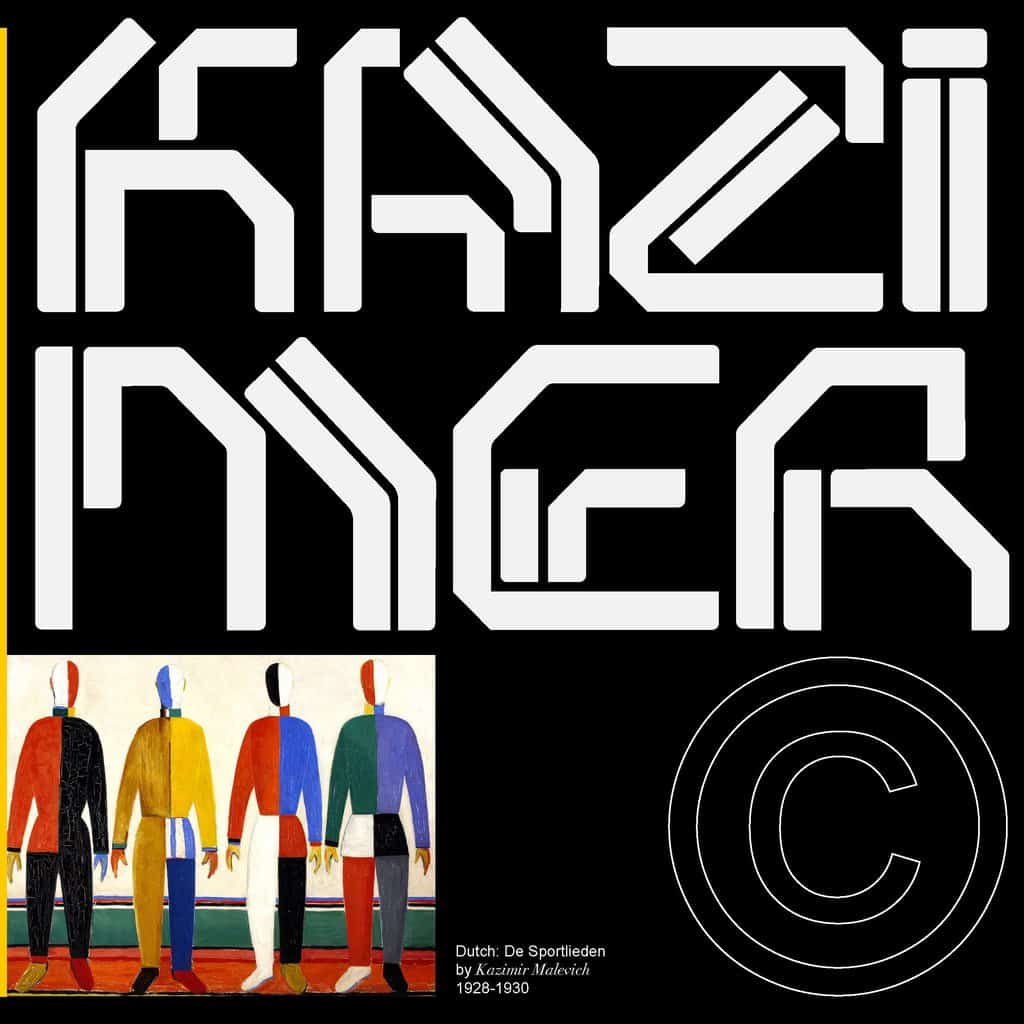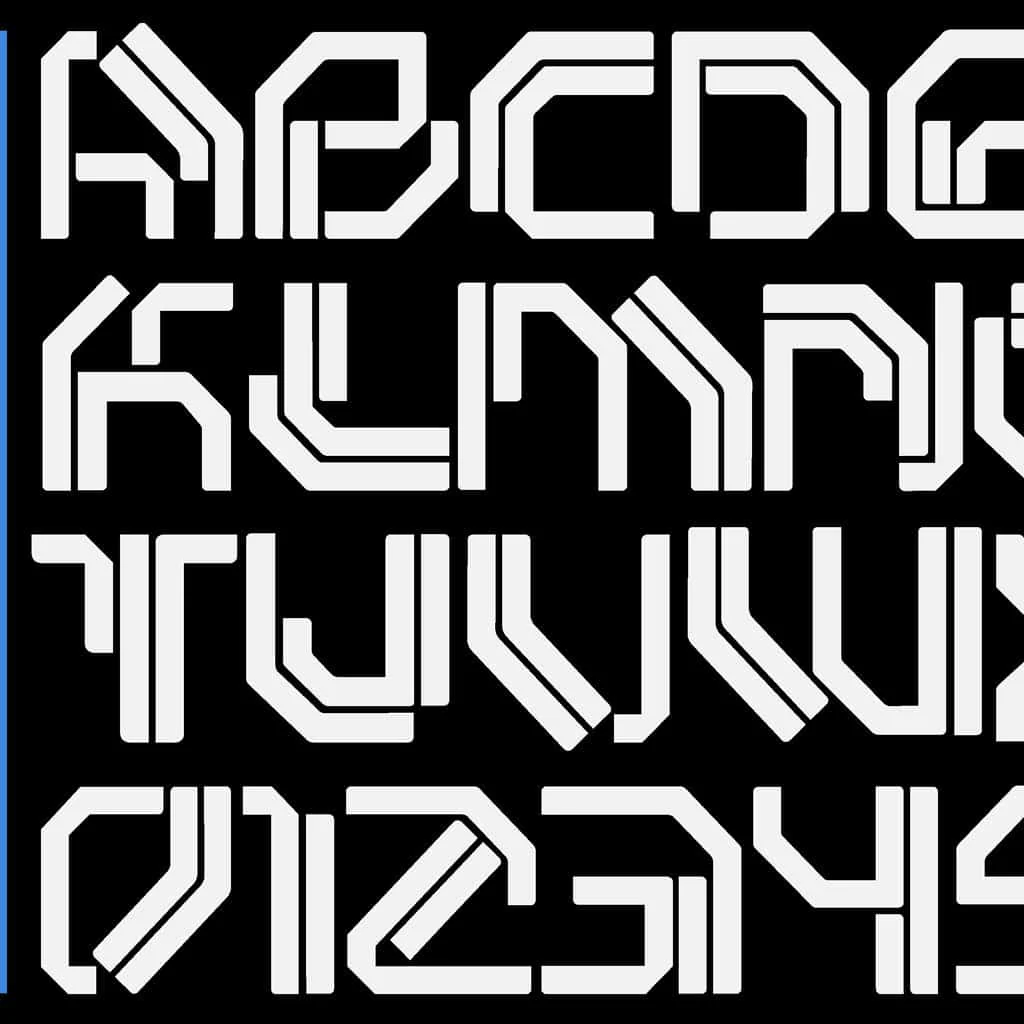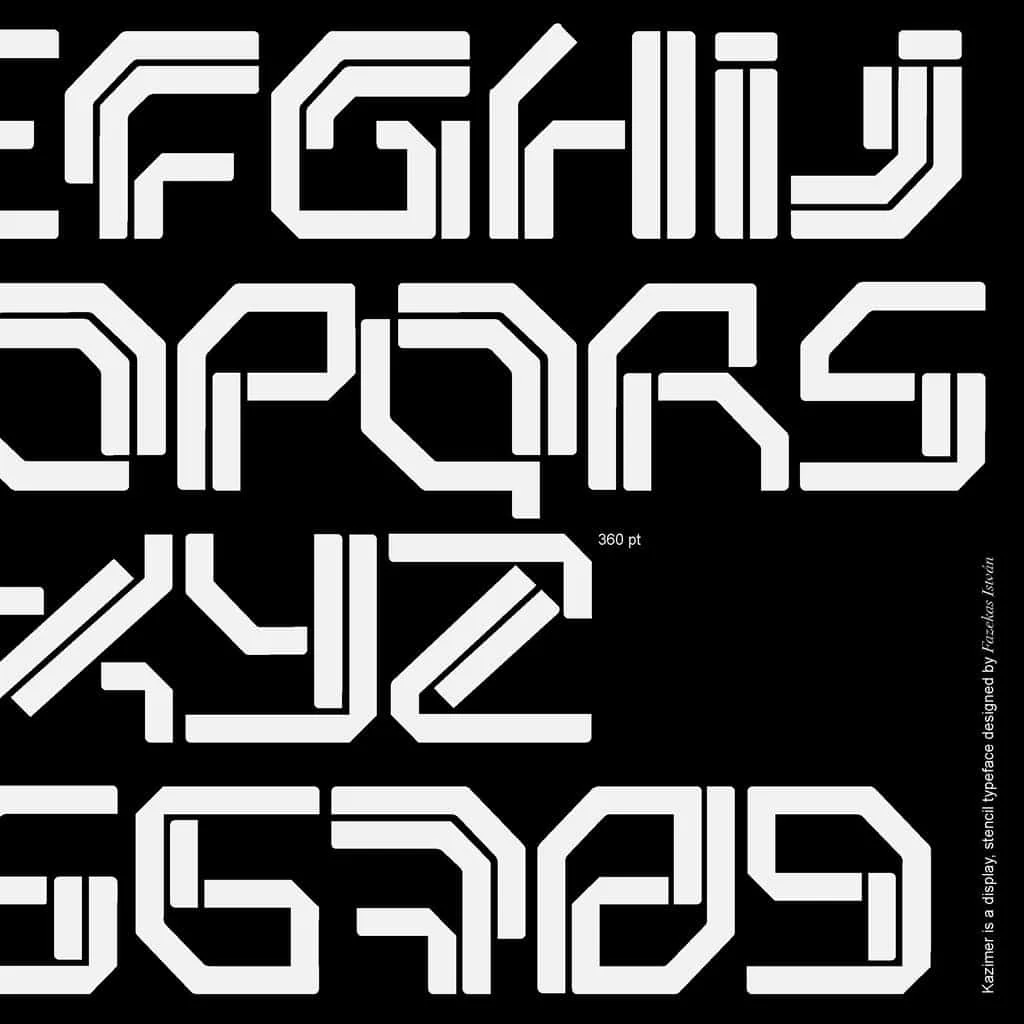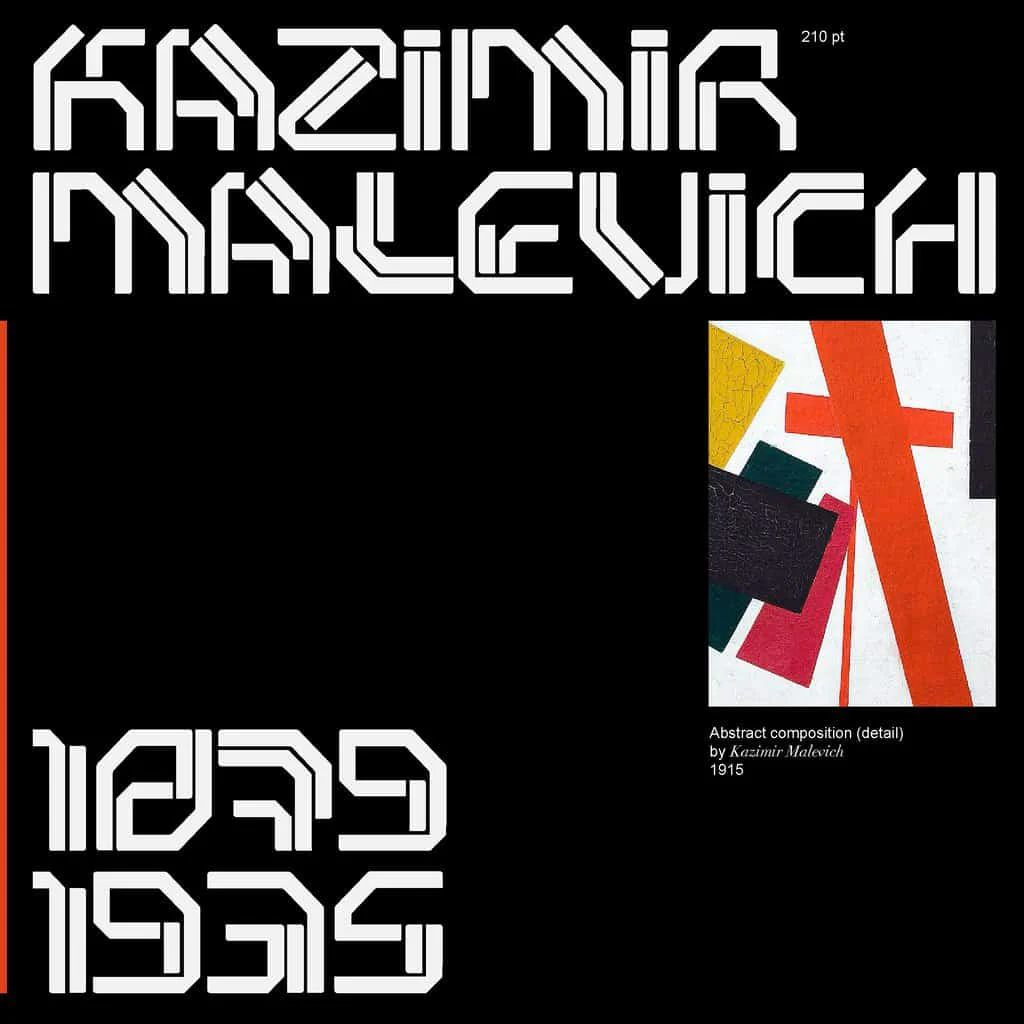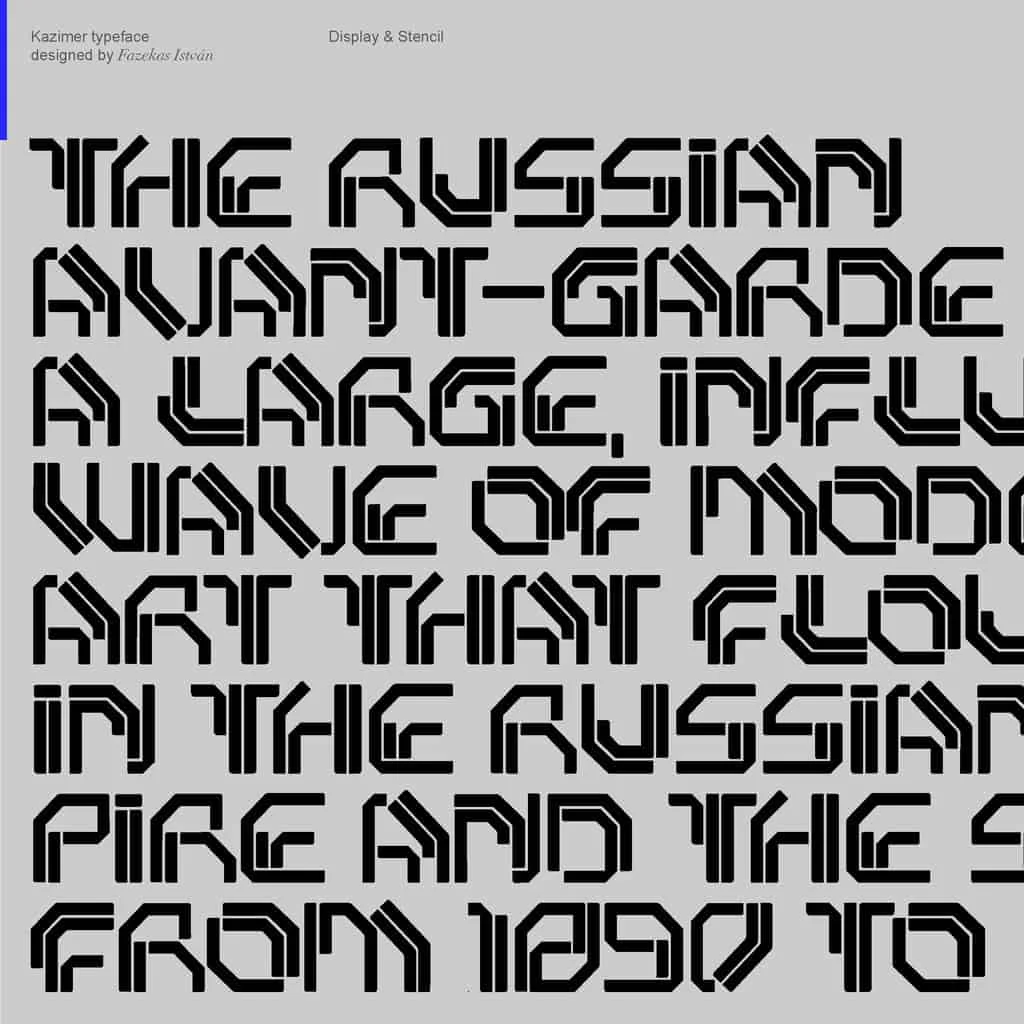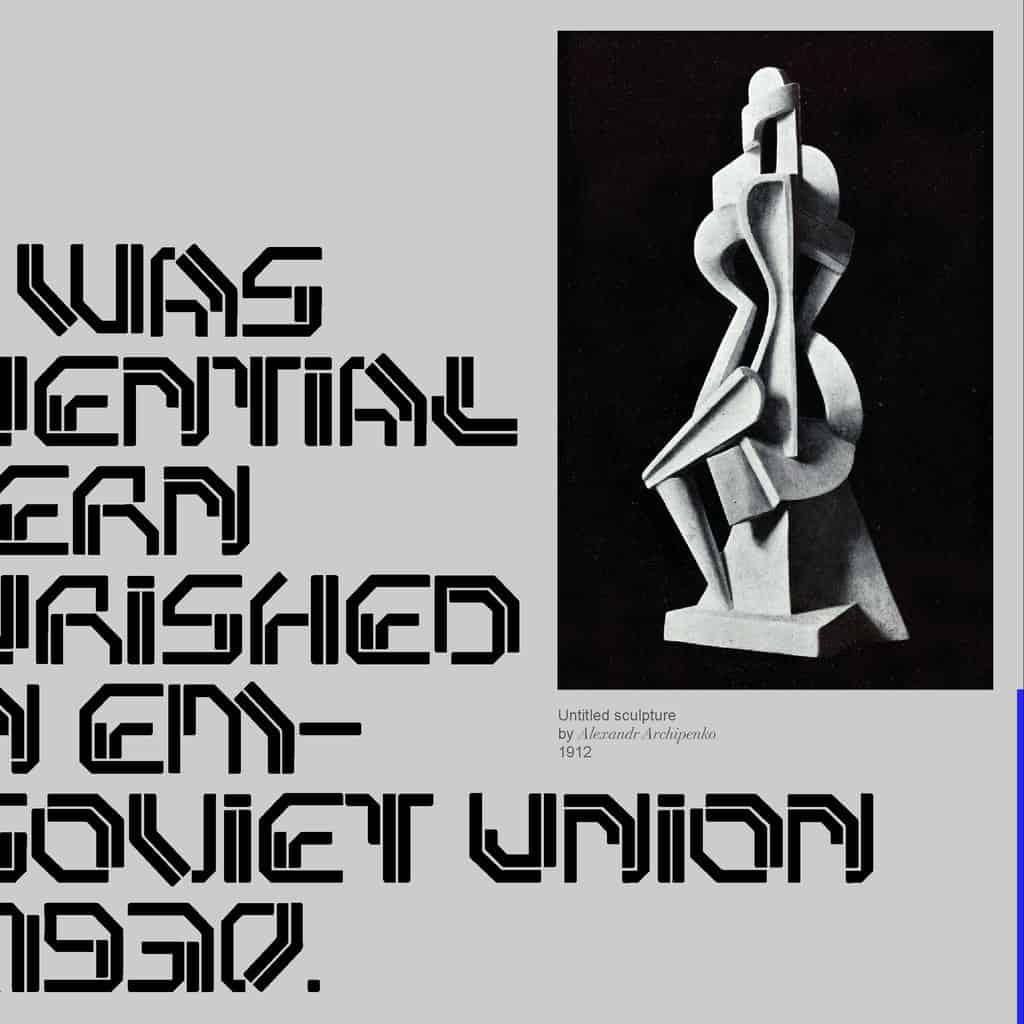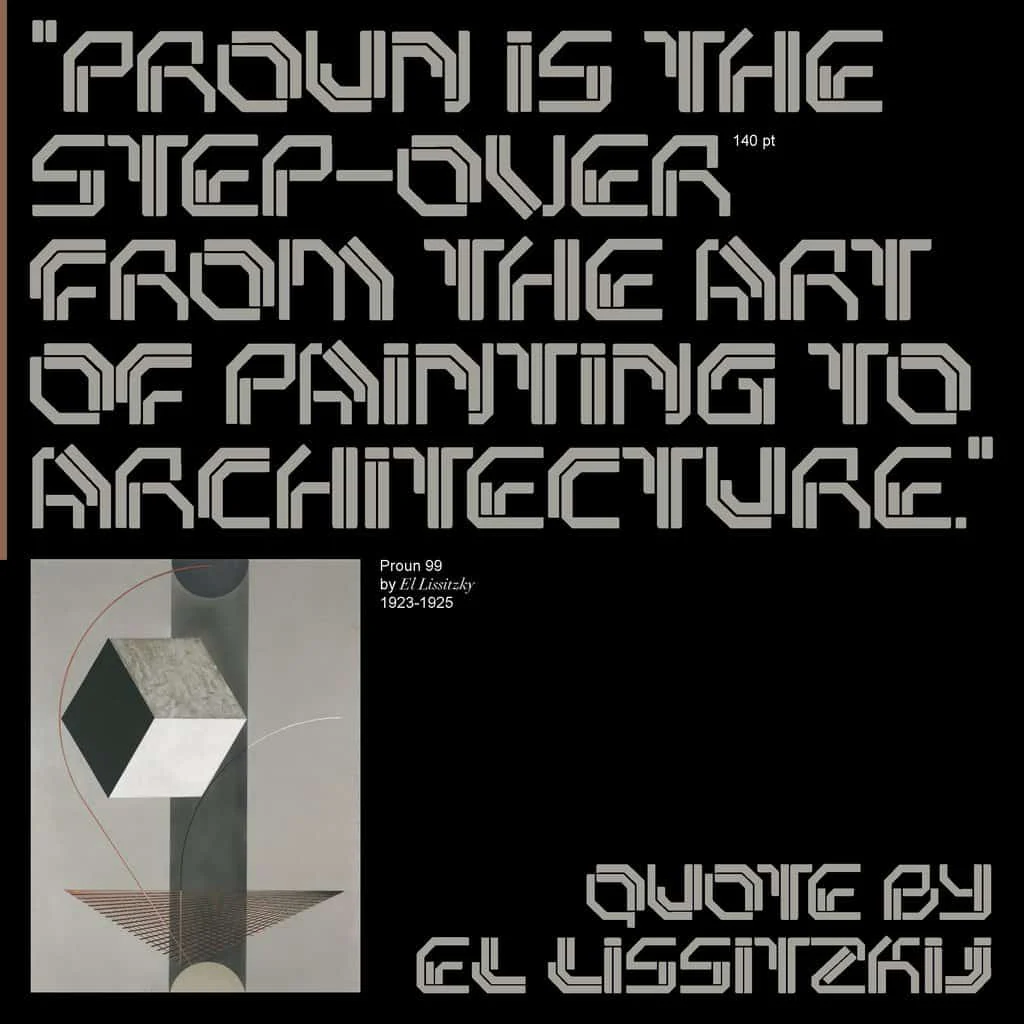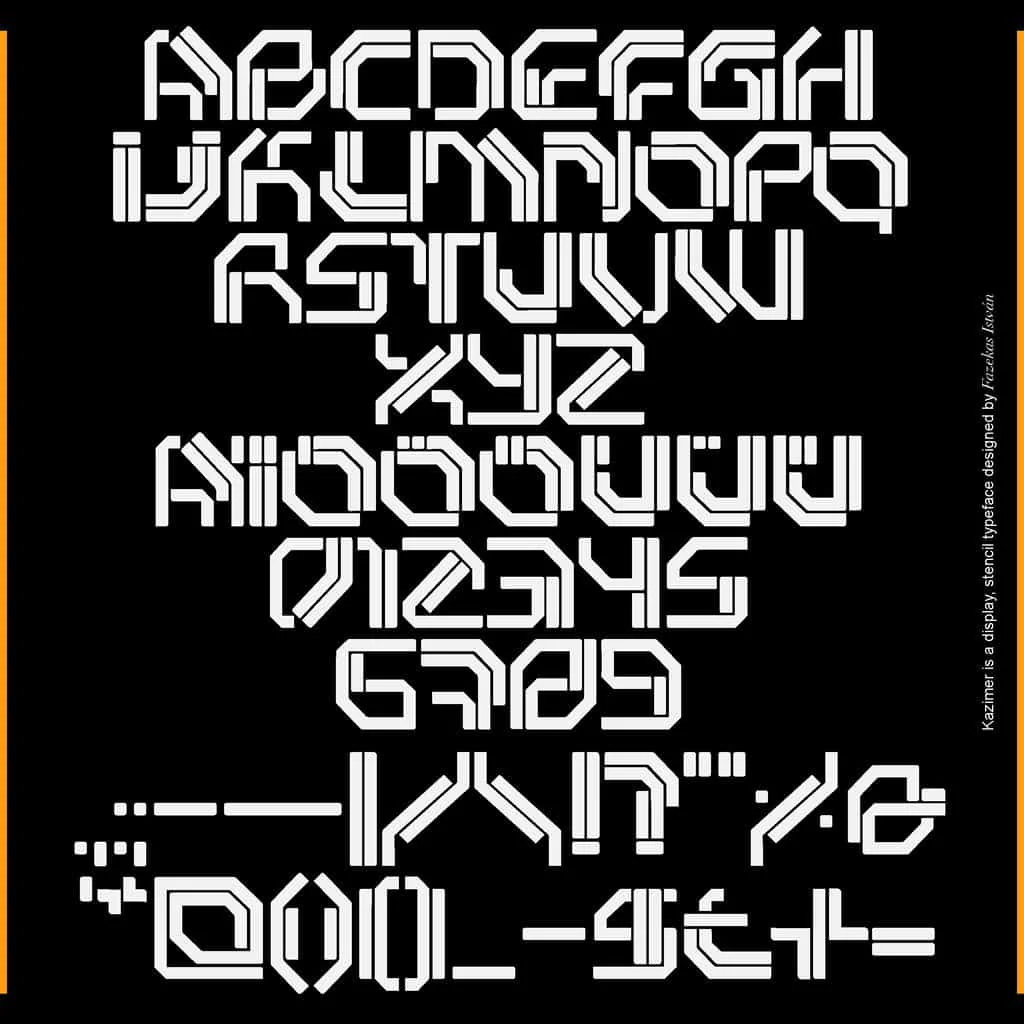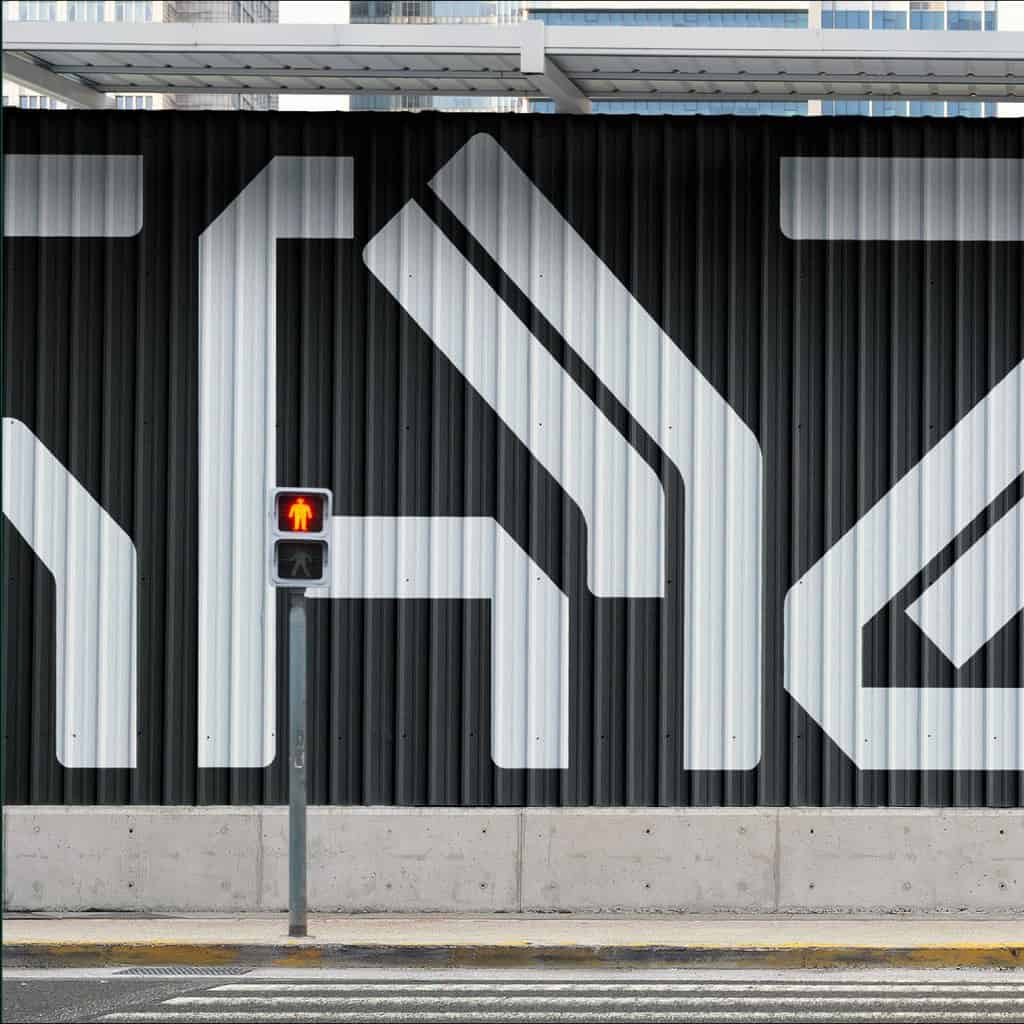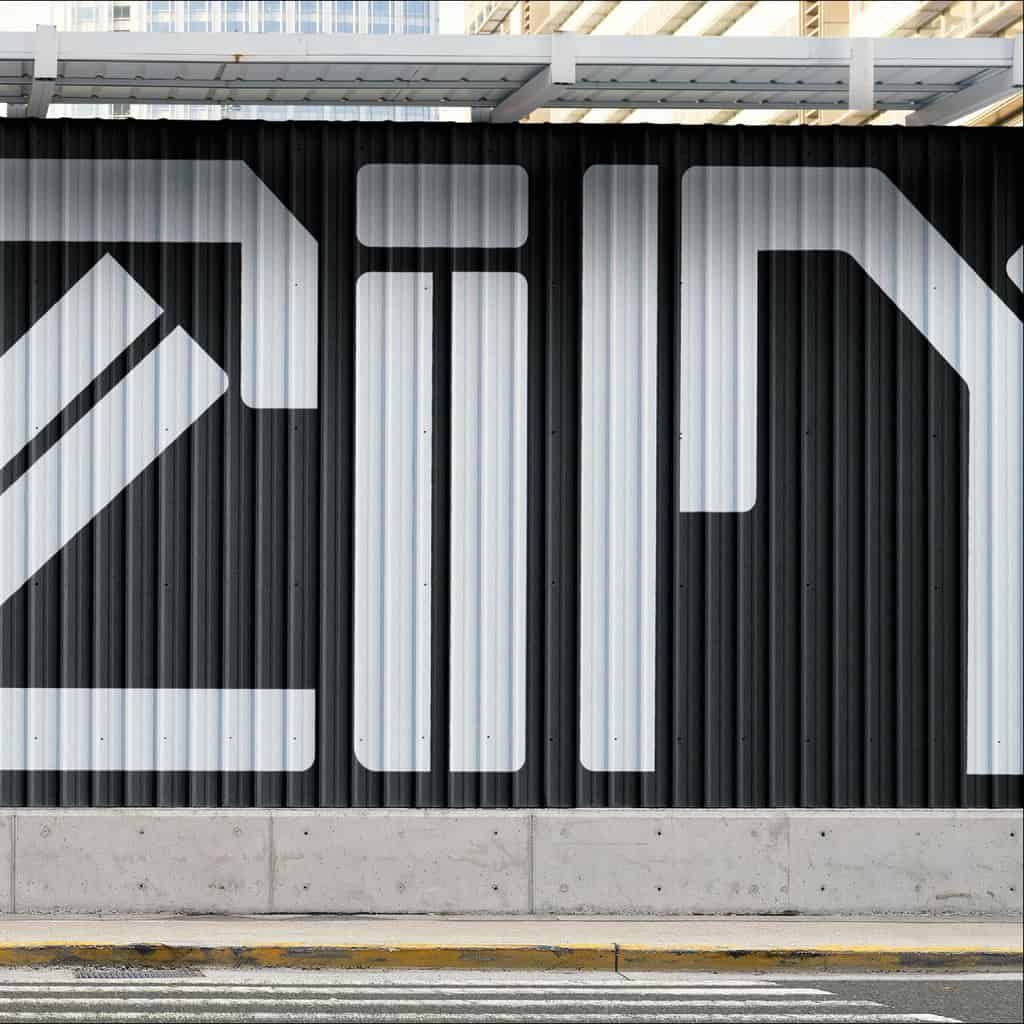
Kazimer
Kazimer is a striking stencil display typeface that embodies the essence of Russian avant-garde minimalism. Each character is a robust composition, meticulously designed to command attention with its bold shapes and abstract forms.
Through its inspiration from the Russian avant-garde movement, Kazimer combines functionality with creativity. Its stencil design ensures each glyph stands out distinctly, making it ideal for eye-catching headlines, impactful posters, and unique branding projects.
Kazimer's robust yet minimalist approach makes it a versatile choice across various design applications, ensuring both visual impact and clarity.